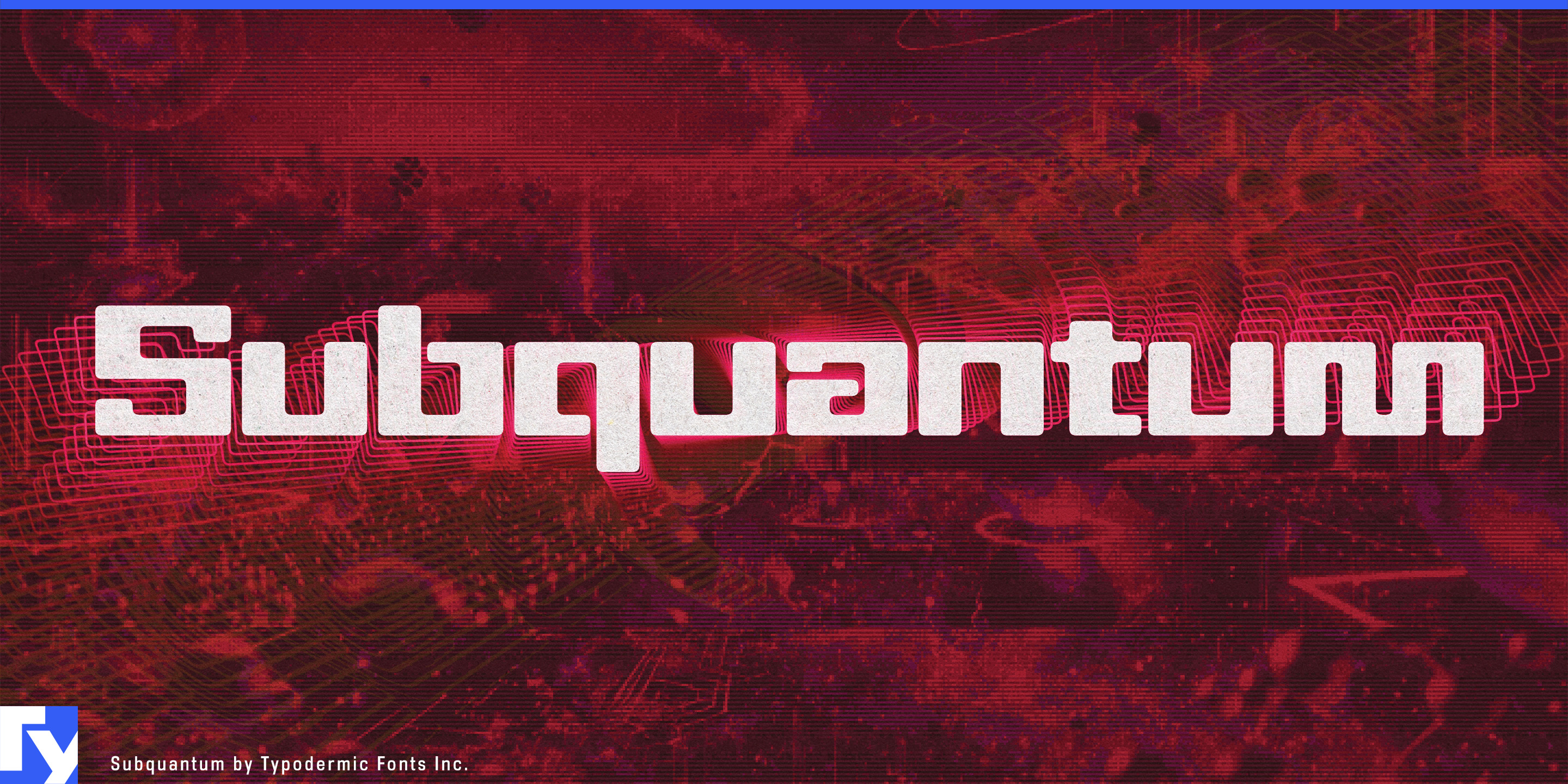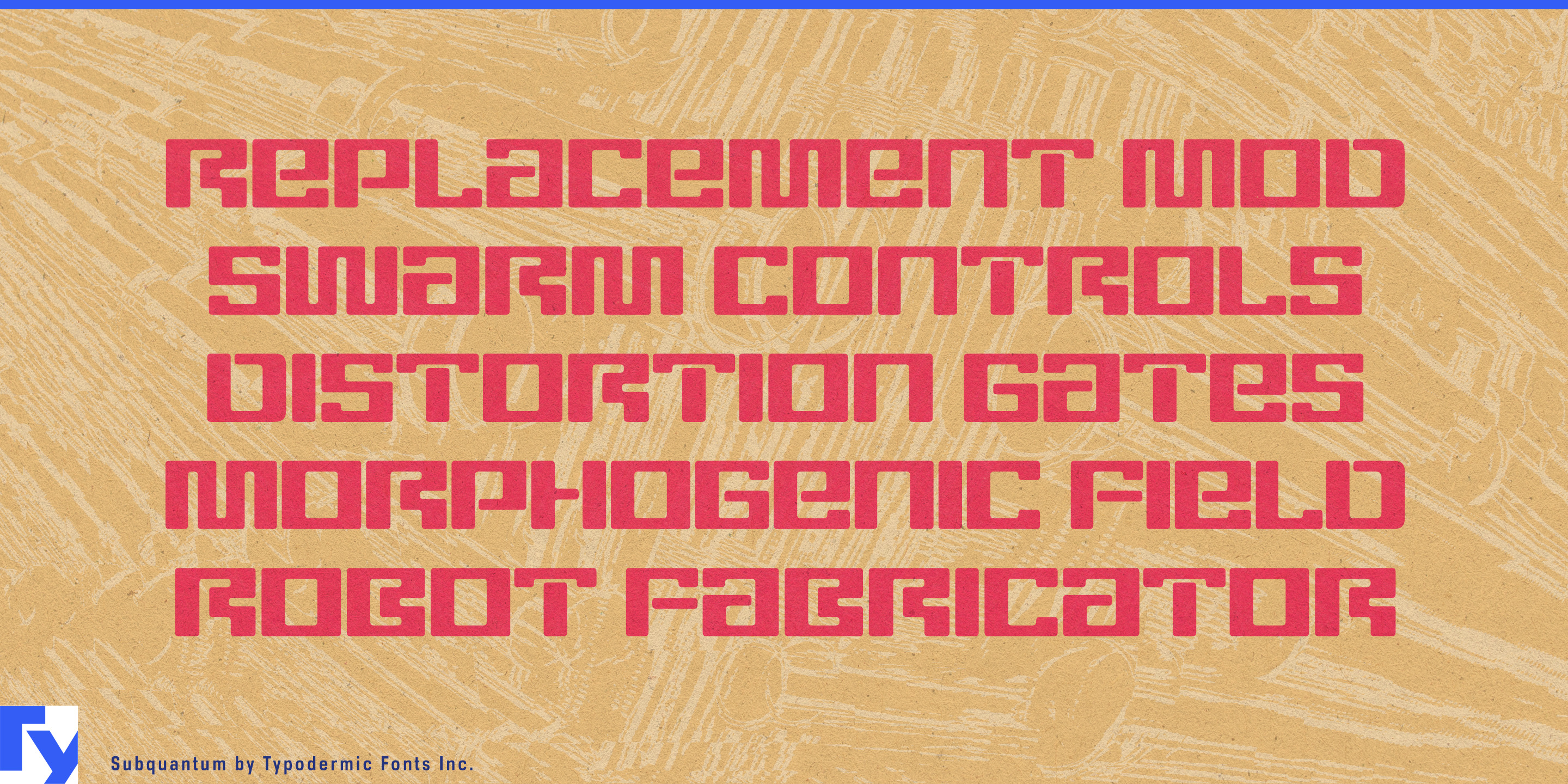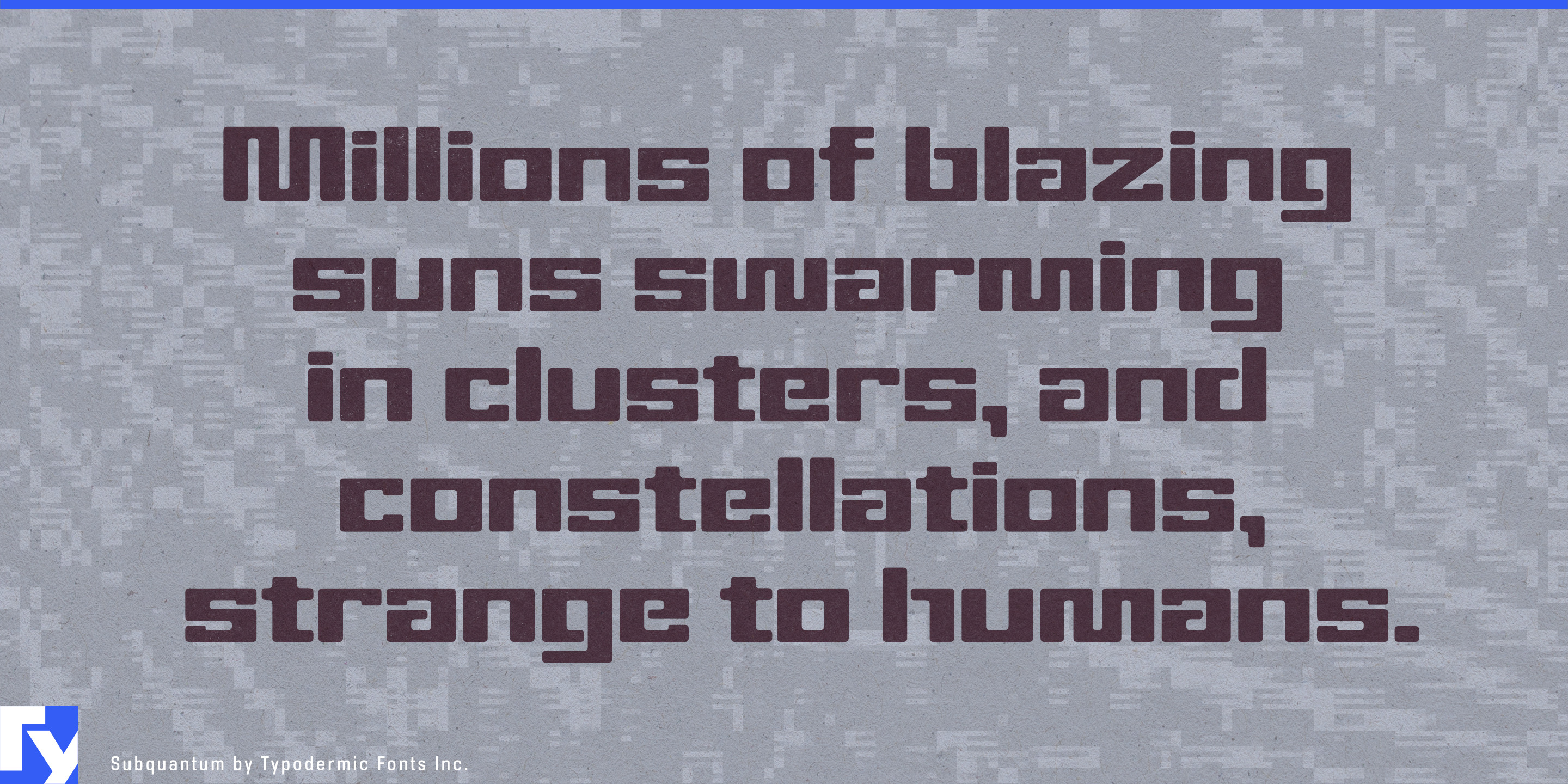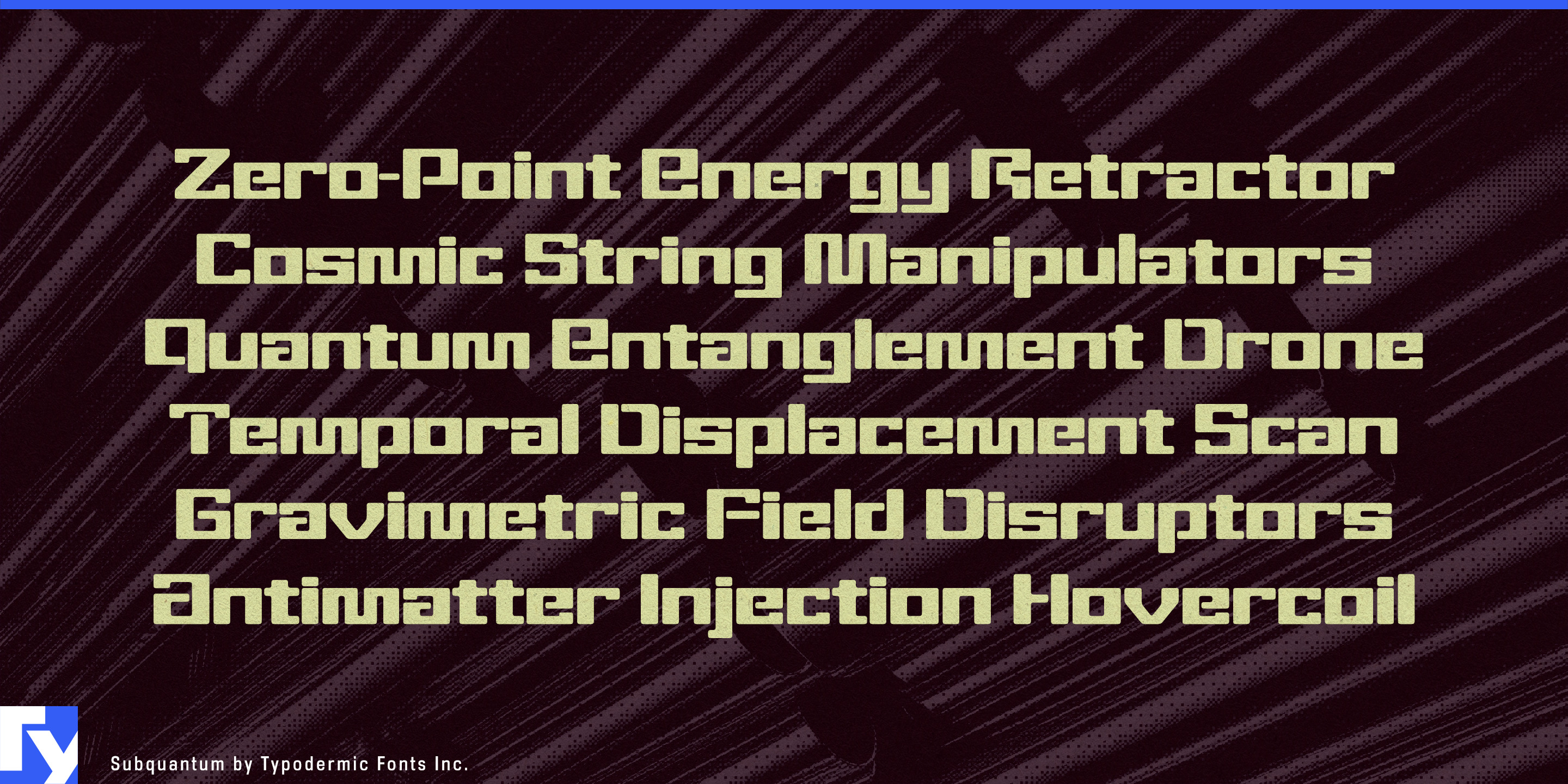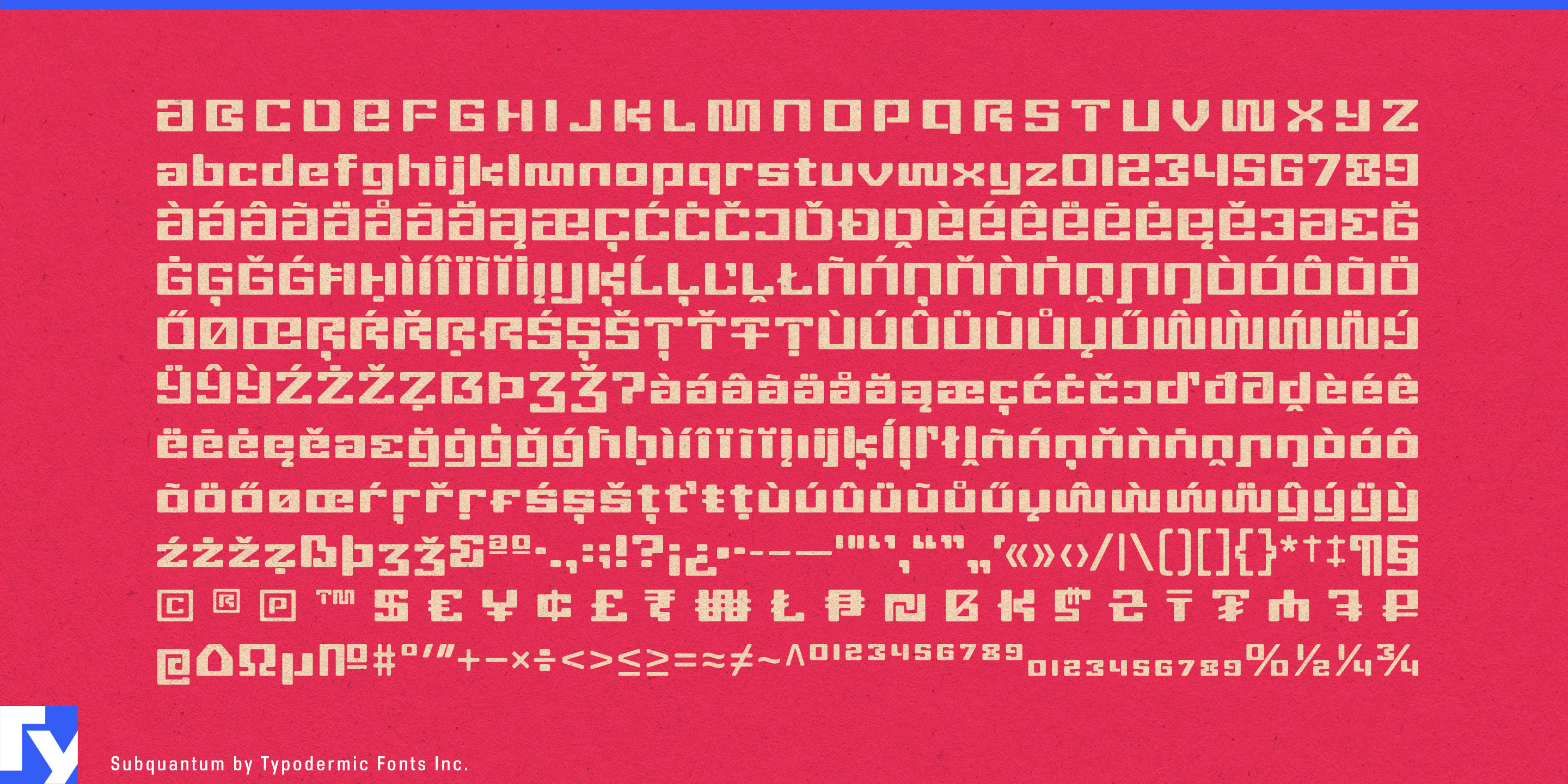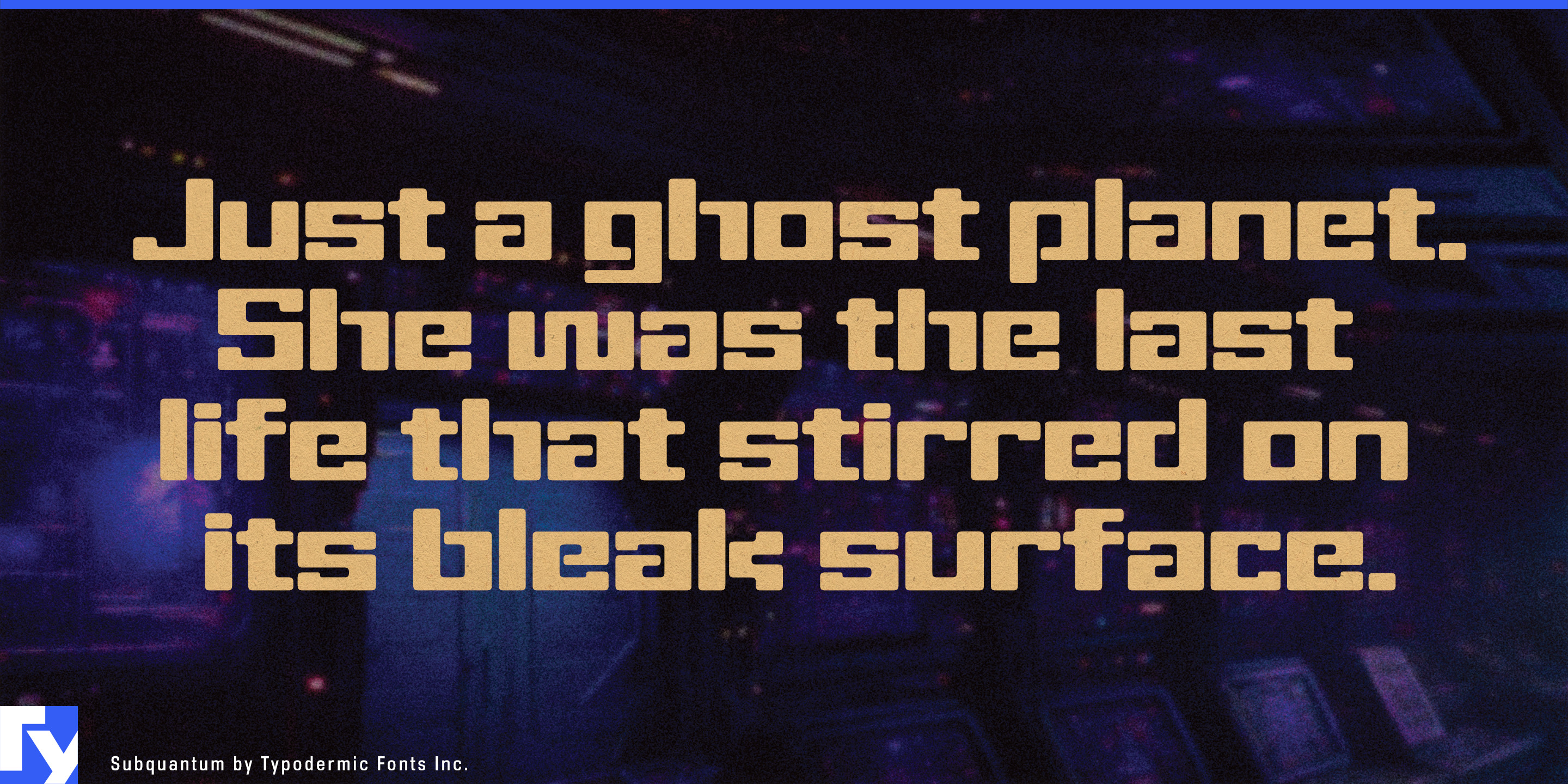
Subquantum
Subquantum takes the squarish techno aesthetic into bold new territory. Inspired by the iconic NASA “worm” logo yet pushing its geometry to the extreme, its letterforms are engineered for precision and impact. Hard-edged proportions are tempered with carefully rounded corners, creating a unique balance—technical enough for aerospace branding, yet approachable enough for consumer products.
Its condensed, blocky build delivers punchy headlines that stay legible even in tighter spaces, while the softened detailing adds a human touch to an otherwise industrial form. Subquantum’s structure makes it as comfortable on a lab doorplate as it is on the cover of a sci-fi streaming series. In professional and industrial contexts, it’s a natural fit for aerospace agencies, clean-tech startups, research labs, and high-precision manufacturing. In entertainment, it channels cinematic futurism for movie posters, game titles, and collectibles packaging. In consumer tech and lifestyle design, it brings a crisp, forward-looking edge to wearables, home devices, and performance gear.
With broad multilingual coverage, clean numeral forms, and strong visual rhythm, Subquantum is built for a global audience. Whether you’re branding the next orbital mission, launching a sci-fi gaming franchise, or packaging tomorrow’s gadgets, Subquantum delivers a voice that’s both authoritative and inviting—a typographic bridge between the science lab and the living room of the future.